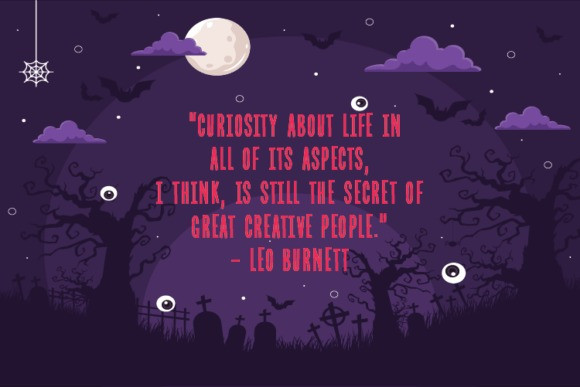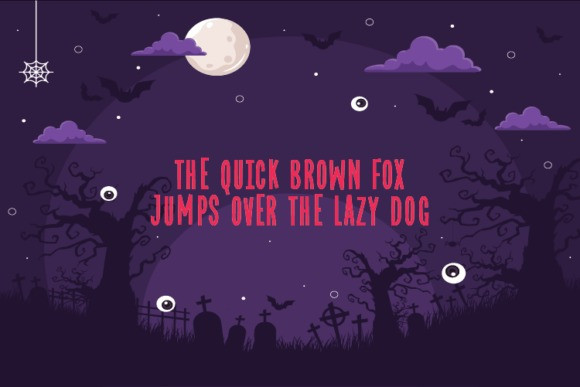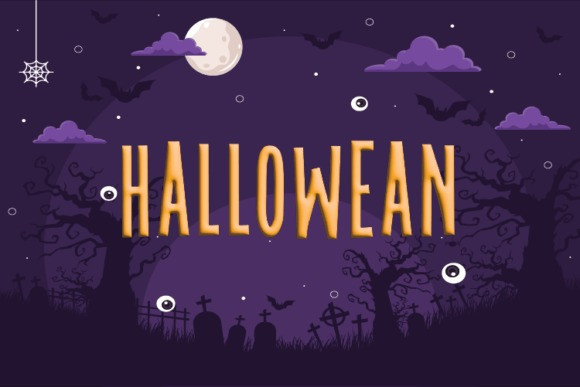
Hallowean Font
Hallowean Font is an interesting and unique display font perfect for quotes, notes, T-shirts, and many more. Fall in love with its incredibly versatile style, and use it to create spectacular designs!